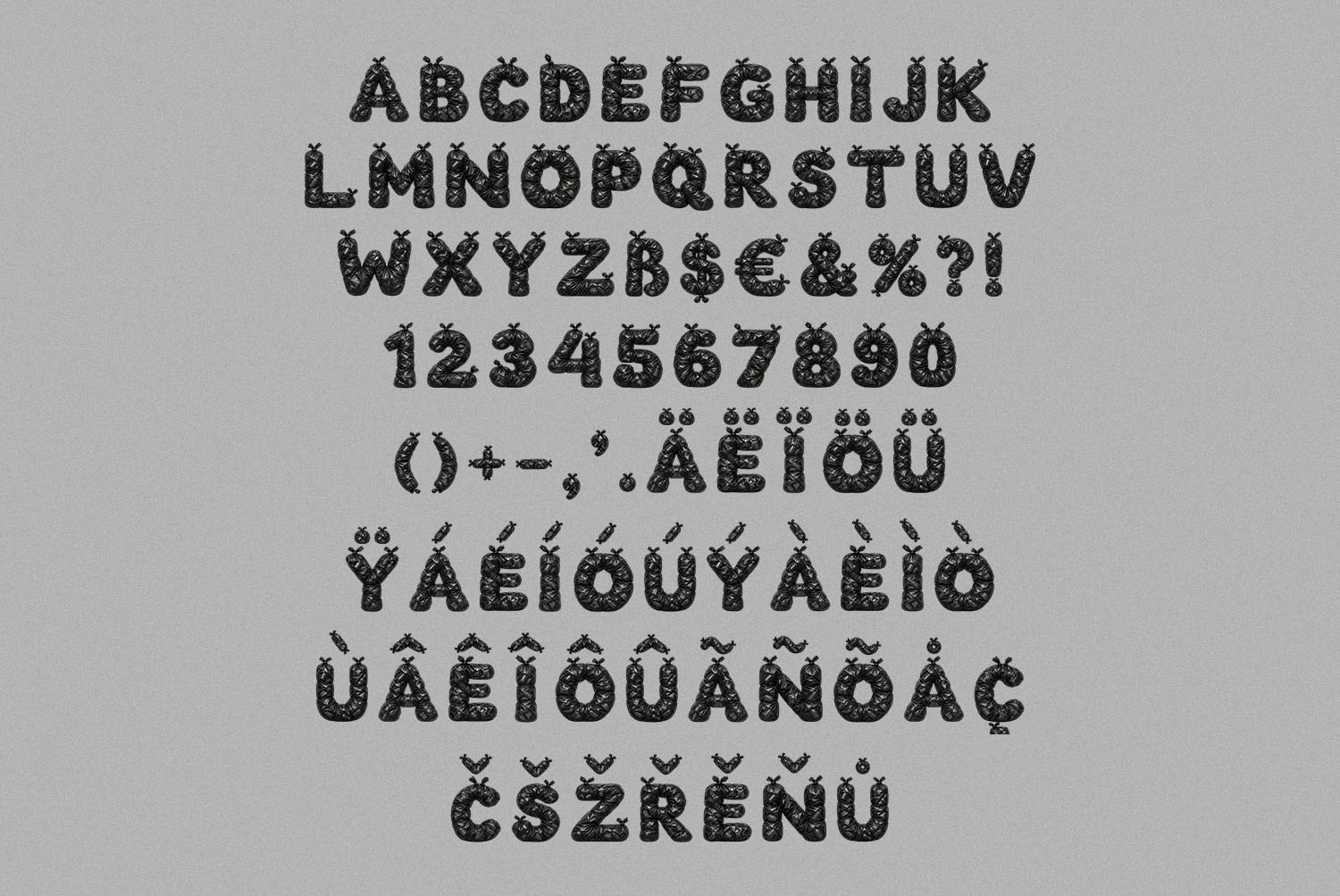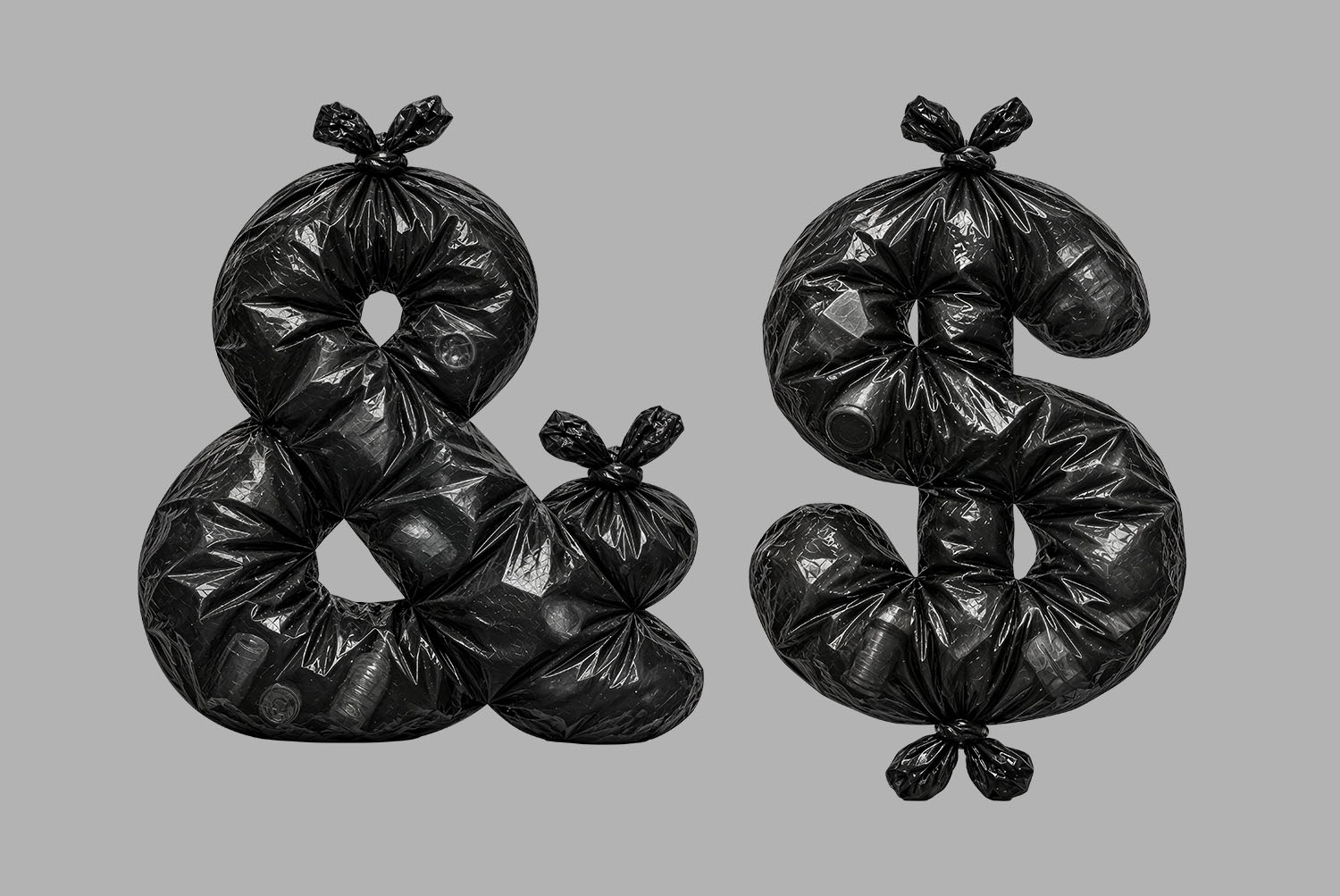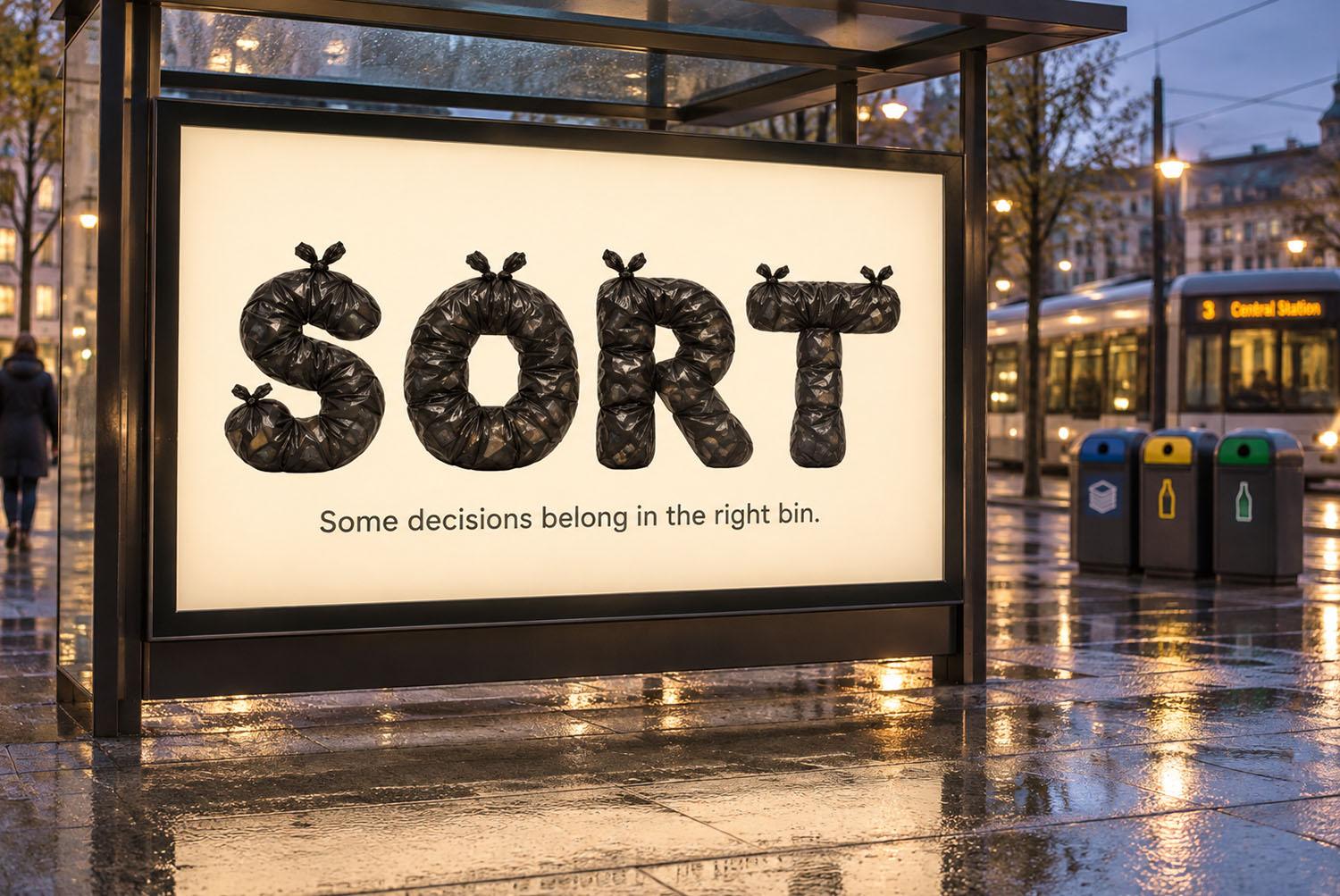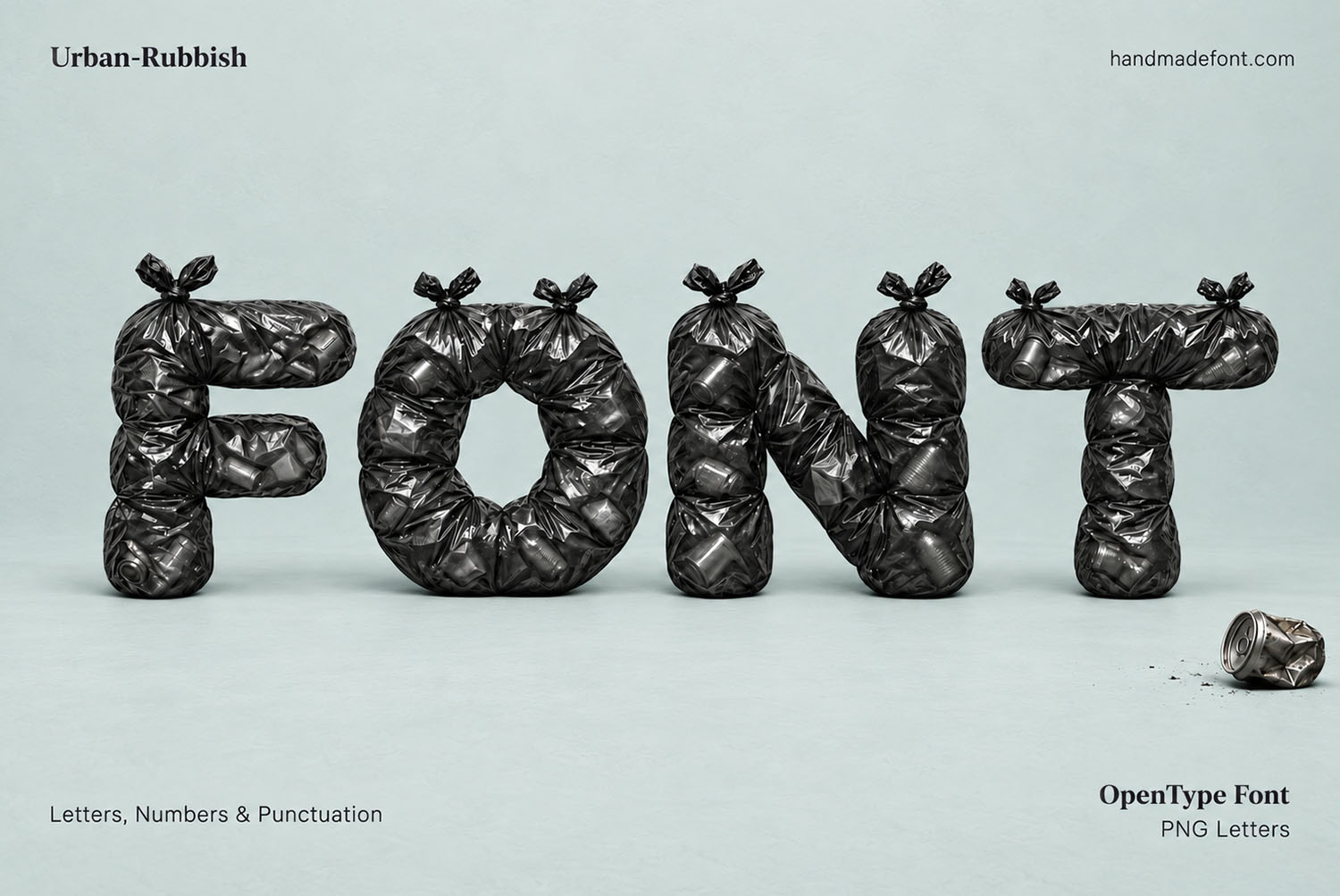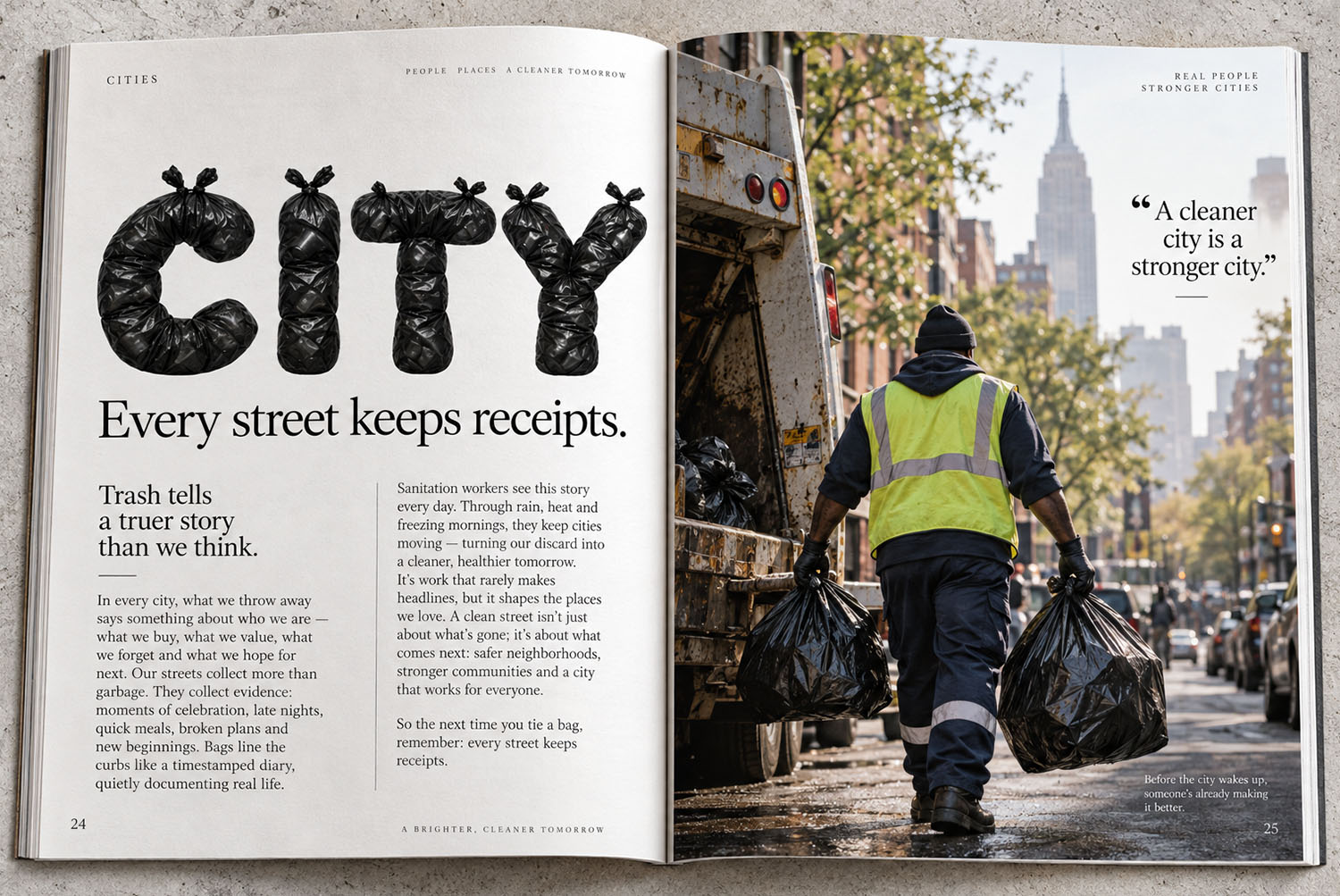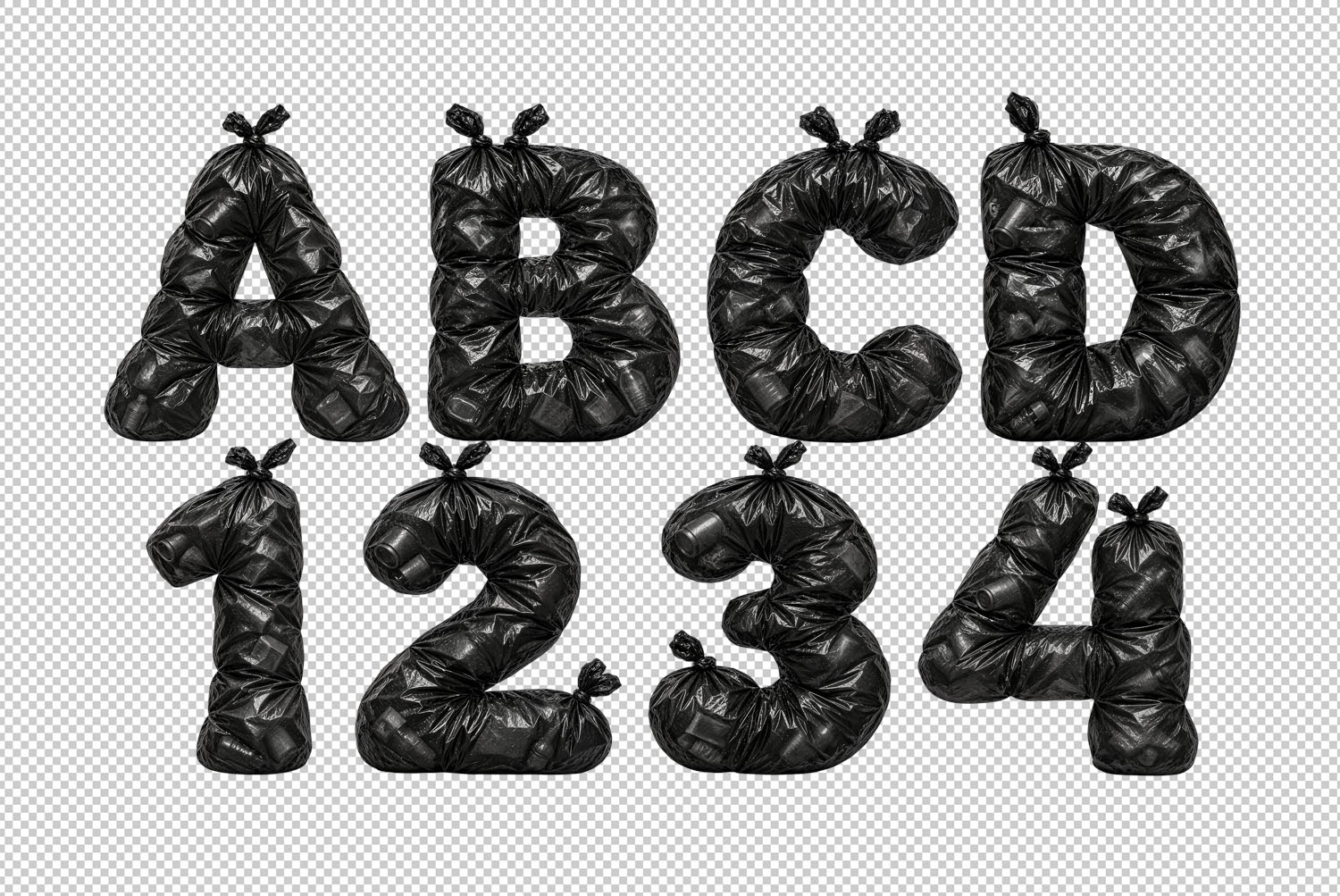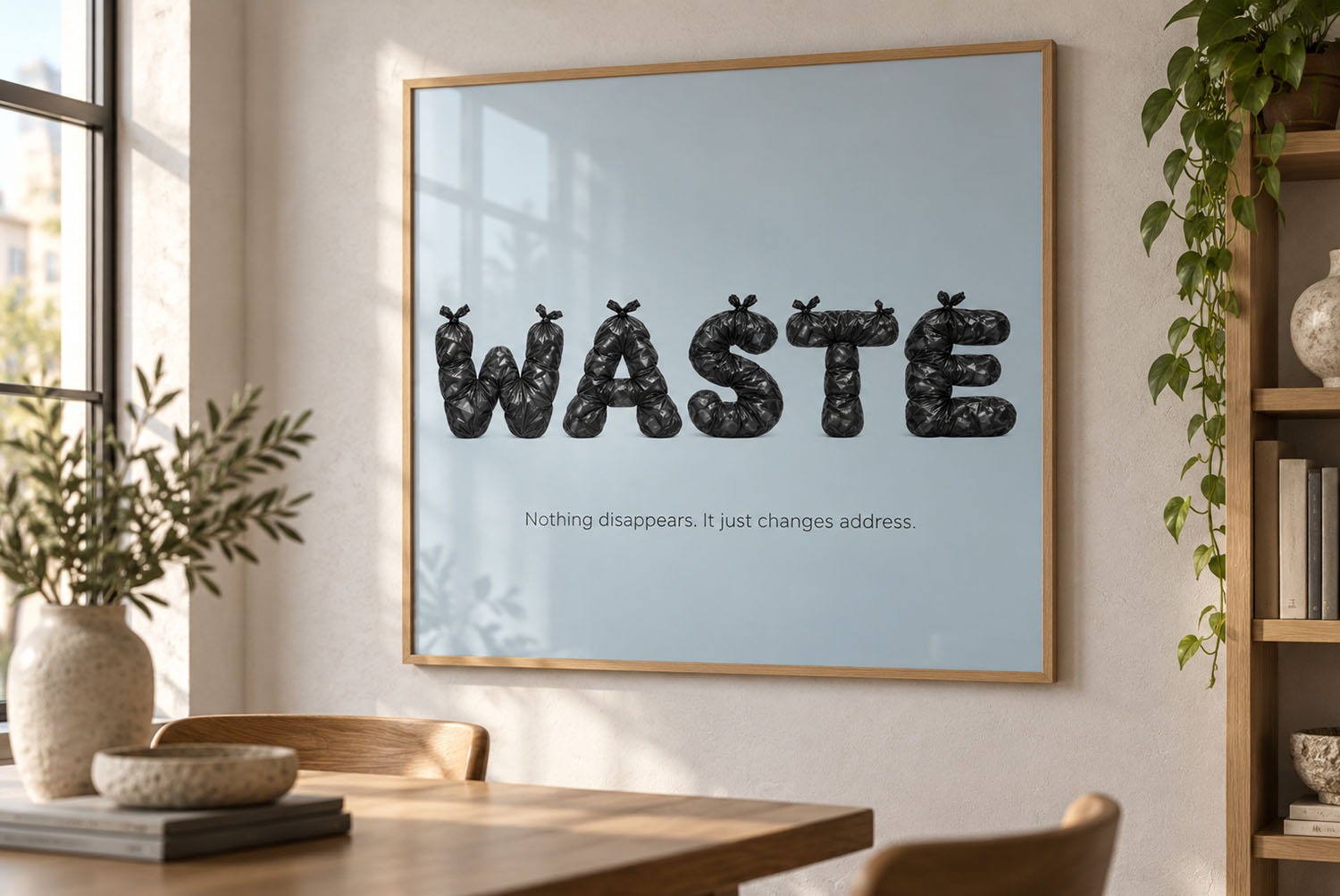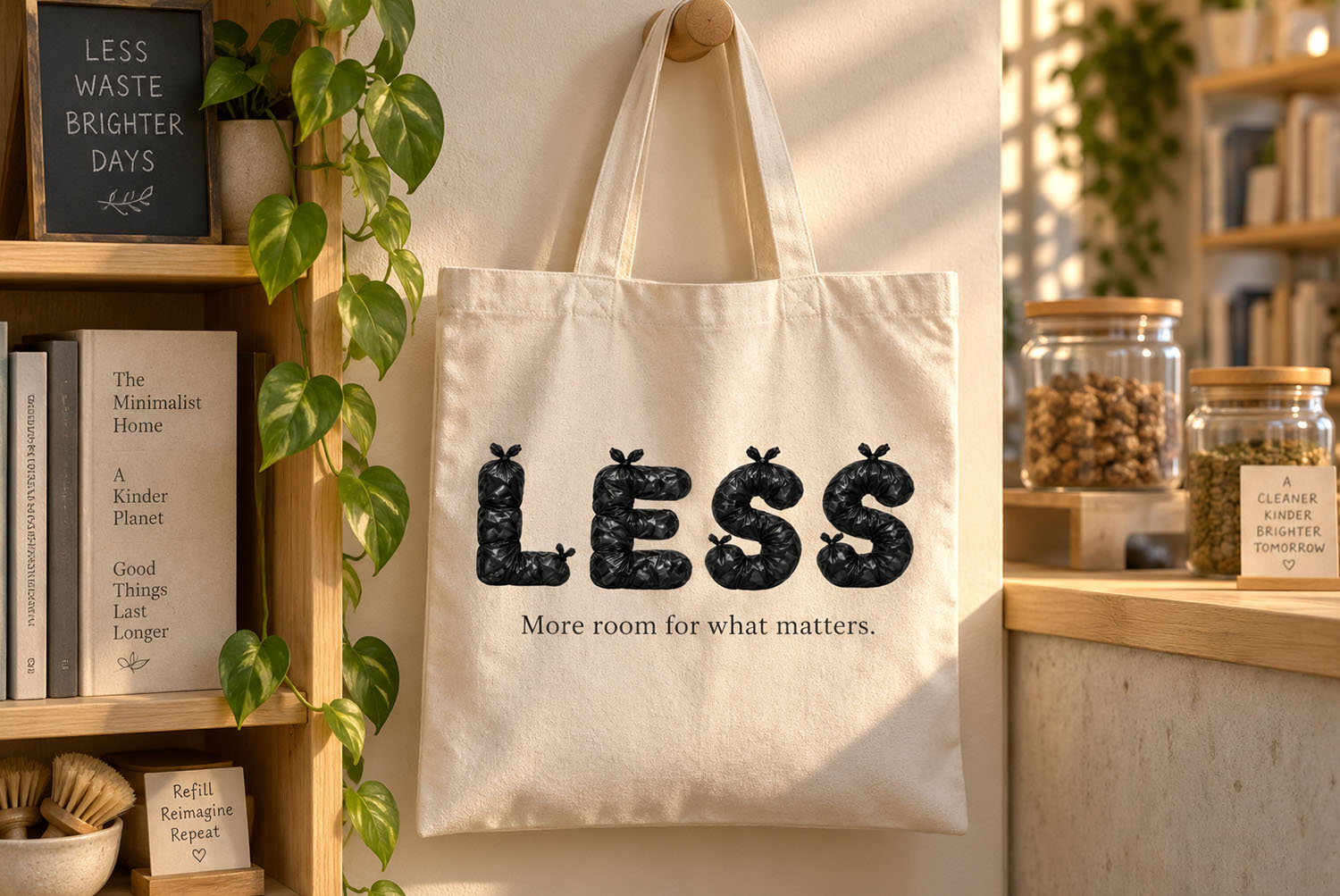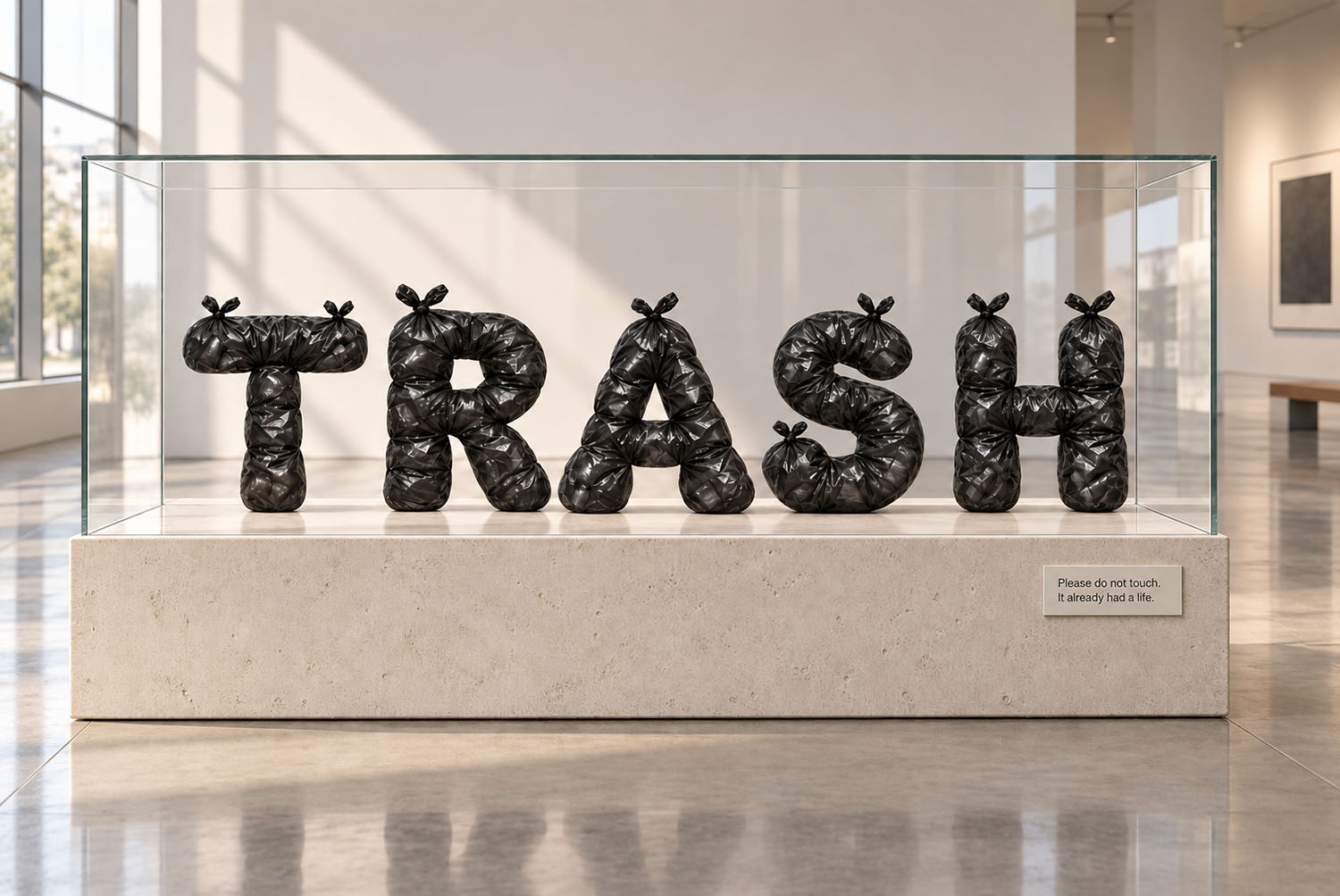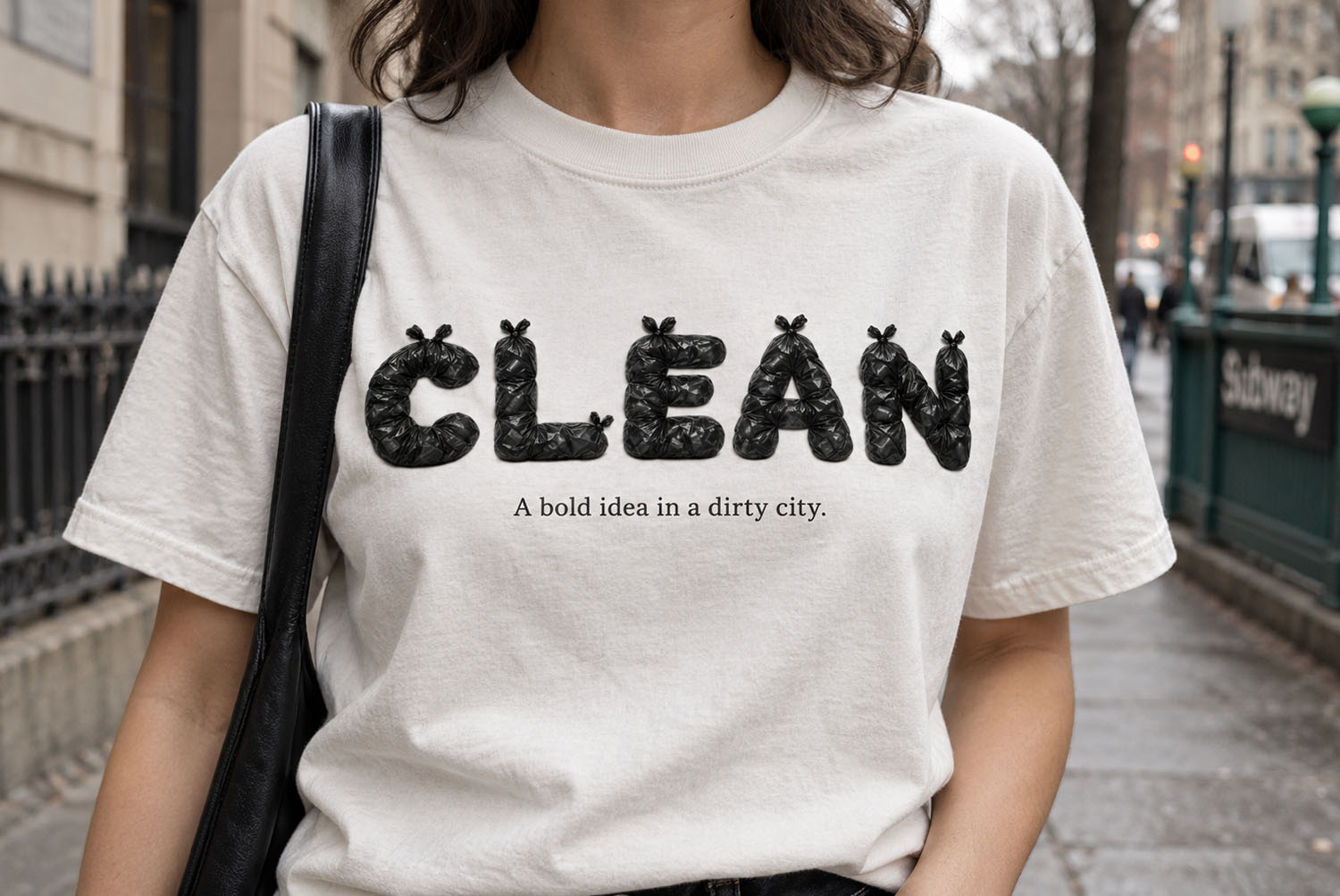
Urban Rubbish Font. Capitals Tied From Black Bin Bags
Urban Rubbish Font builds every capital out of tied black bin bags. Knots sit where a serif would go, the polythene creases and shines, and the odd bottle presses through from inside. Counters stay open, since the bag is cinched around them. It comes as an OTF you type with, plus separate PNG letters on transparent backgrounds.
Urban Rubbish Font Ties Every Letter Shut
Each capital starts as a bag, filled and then knotted at the top. So the knot lands where a serif would sit, and it gives the letter a small ear. Strokes bulge low down, since the weight settles toward the bottom of the plastic. Counters stay open too, because the bag is cinched tight around the hole. Widths shift a little between letters, as no two bags were tied the same way. Nothing repeats exactly, so a doubled letter never looks copied.
Black Polythene Instead of Black Ink
Look closely and the surface does the talking. Creases run in long diagonals, while the highlights break into small hard flares. Under the sheen you can make out a bottle here, a folded box there. Meanwhile the black never goes flat, because the plastic catches whatever light it gets. Shadows gather in the folds as well, so the strokes hold their shape on pale backgrounds. That weight carries down to smaller sizes too.
Where the Urban Rubbish Font Works
Street-level messages, mostly. Waste campaigns, city magazines, refill packaging, a tote bag for a shop that means it. Short words hit hardest here: CLEAN, LESS, NOW. Besides, a gallery case or a plain studio backdrop suits the letters just as well. The alphabet also carries a full accent row, plus digits and a euro sign, so other languages stay in. For something smoother on the same theme, our TrashType Font inflates the bags instead. And the Experimental Fonts collection keeps the rest of the strange materials together.